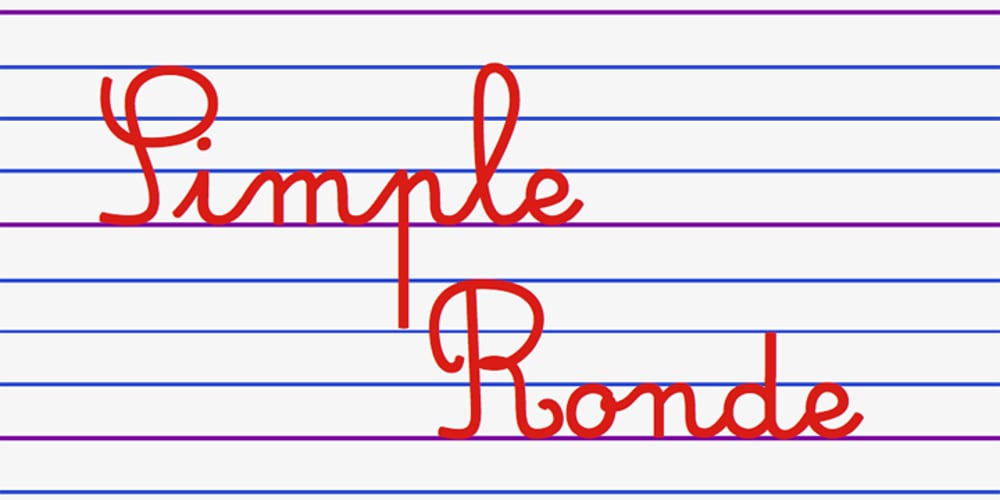
Simple Ronde Font Family was designed by Jean Boyault and published by JBFoundry. Simple Ronde contains 4 styles and family package options. Simple Ronde is conceived for young pupils. This upright script is based on the french use at primary schools. A large set of ligatures make the links between characters more natural, especially with o, b, v and w.